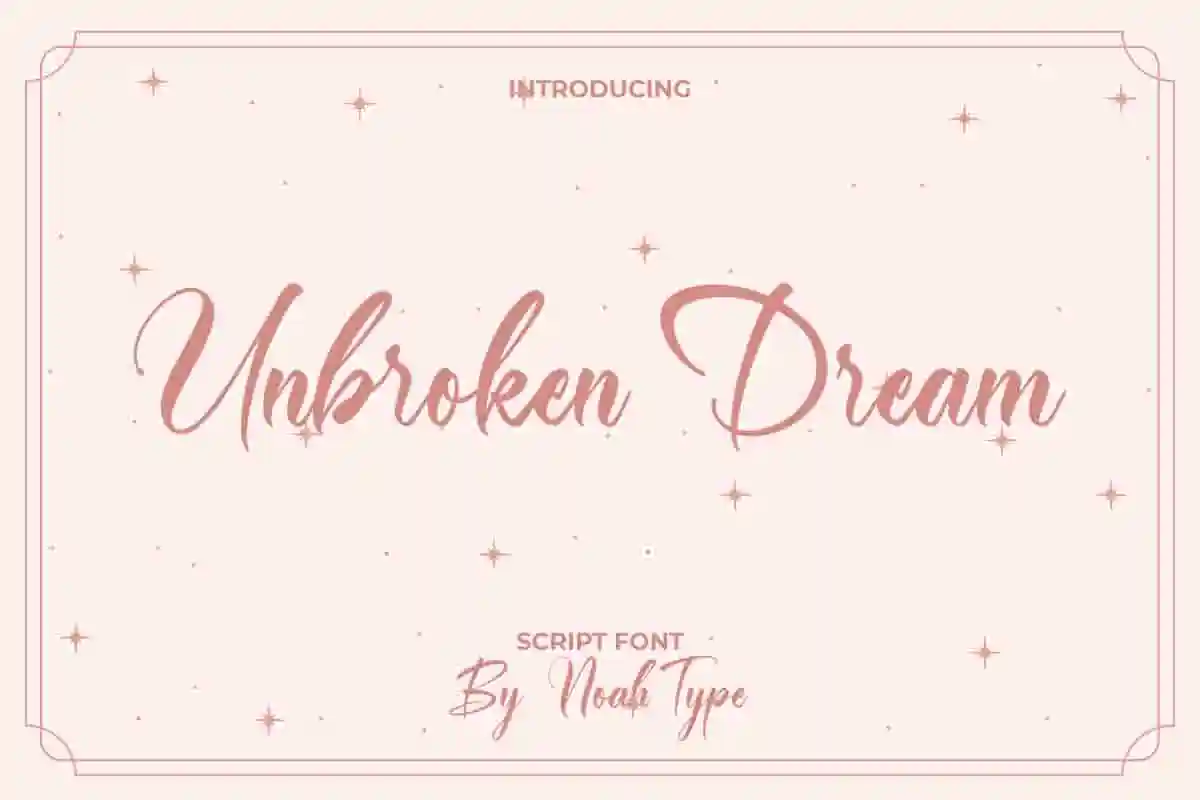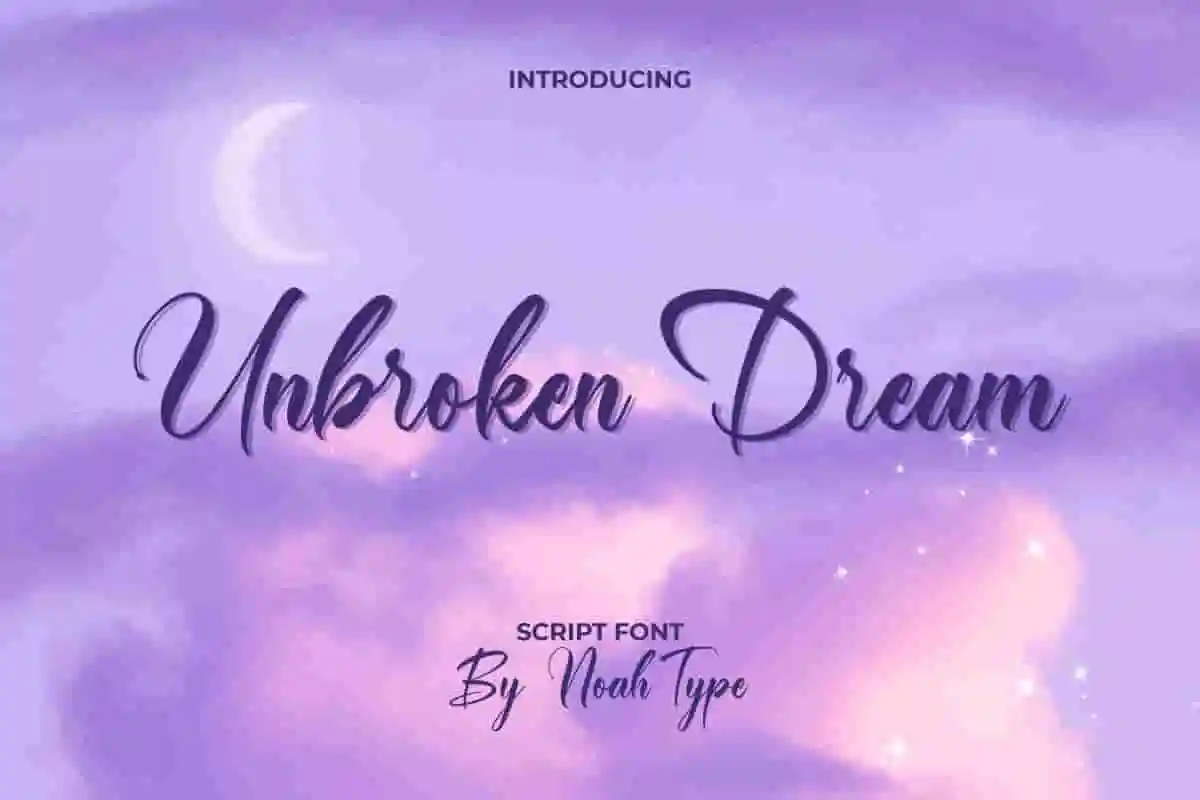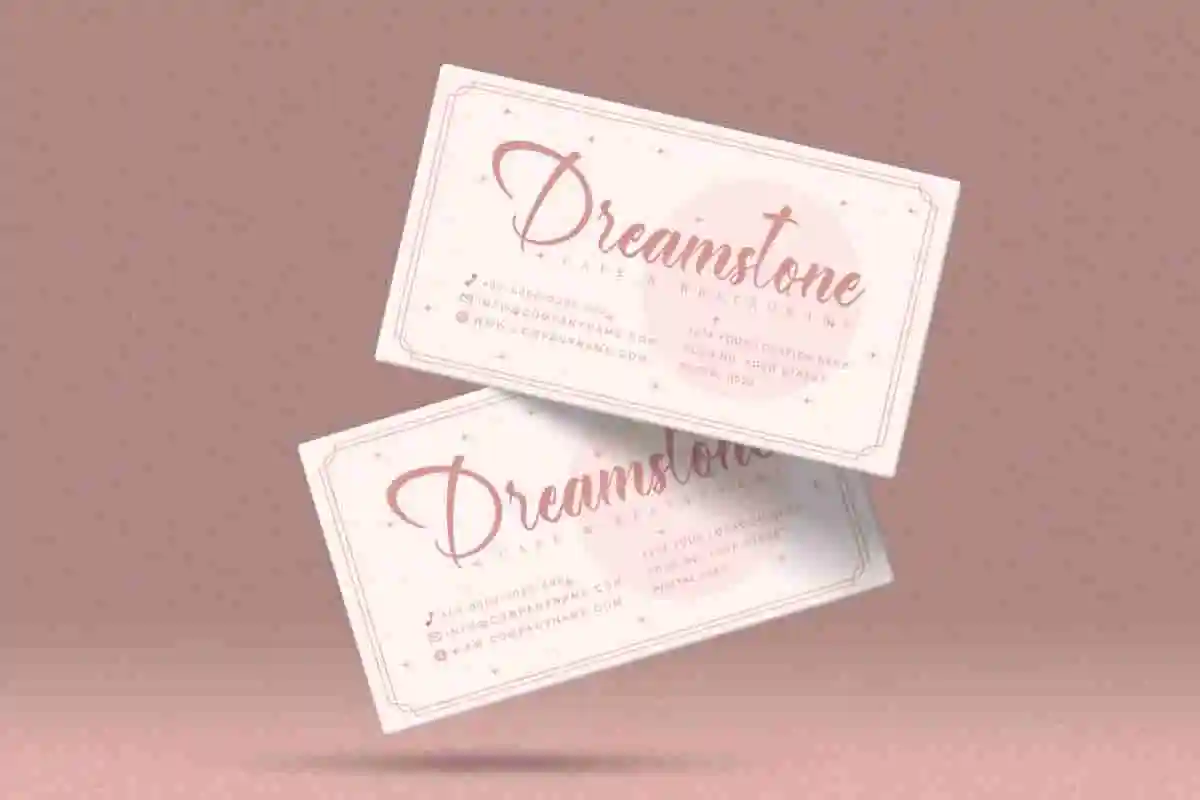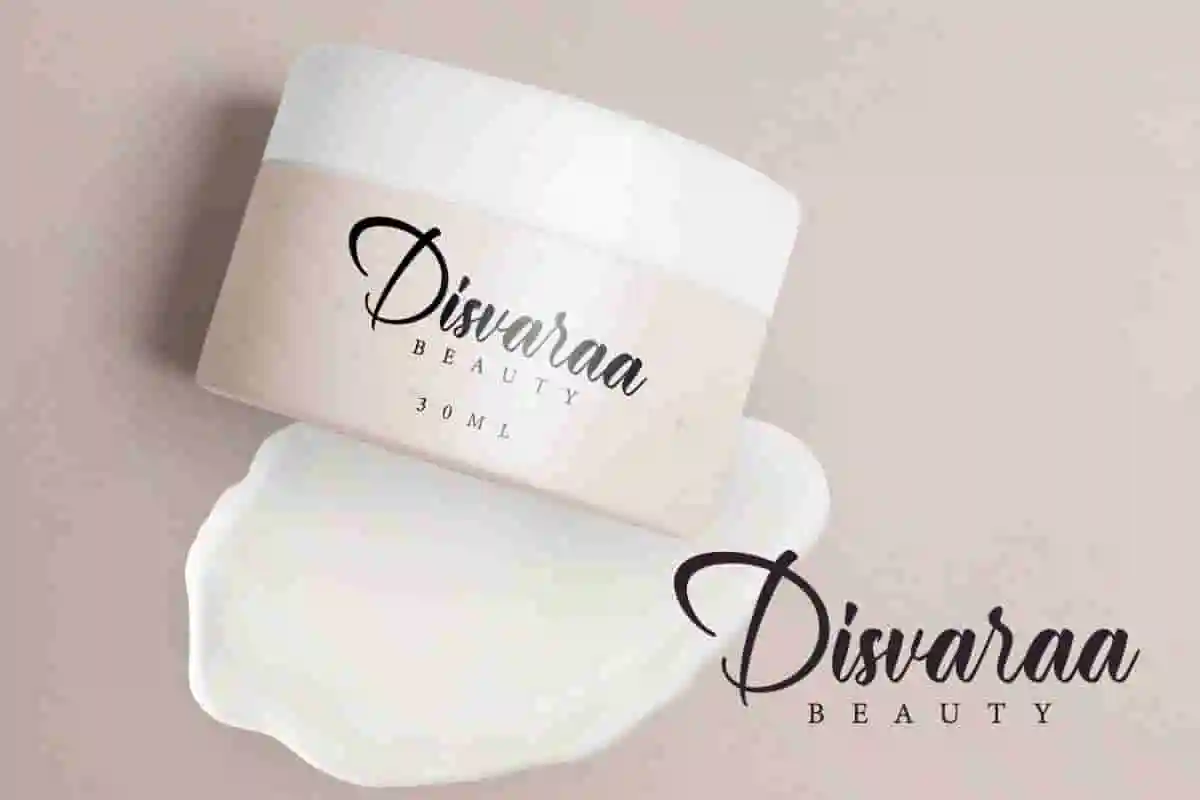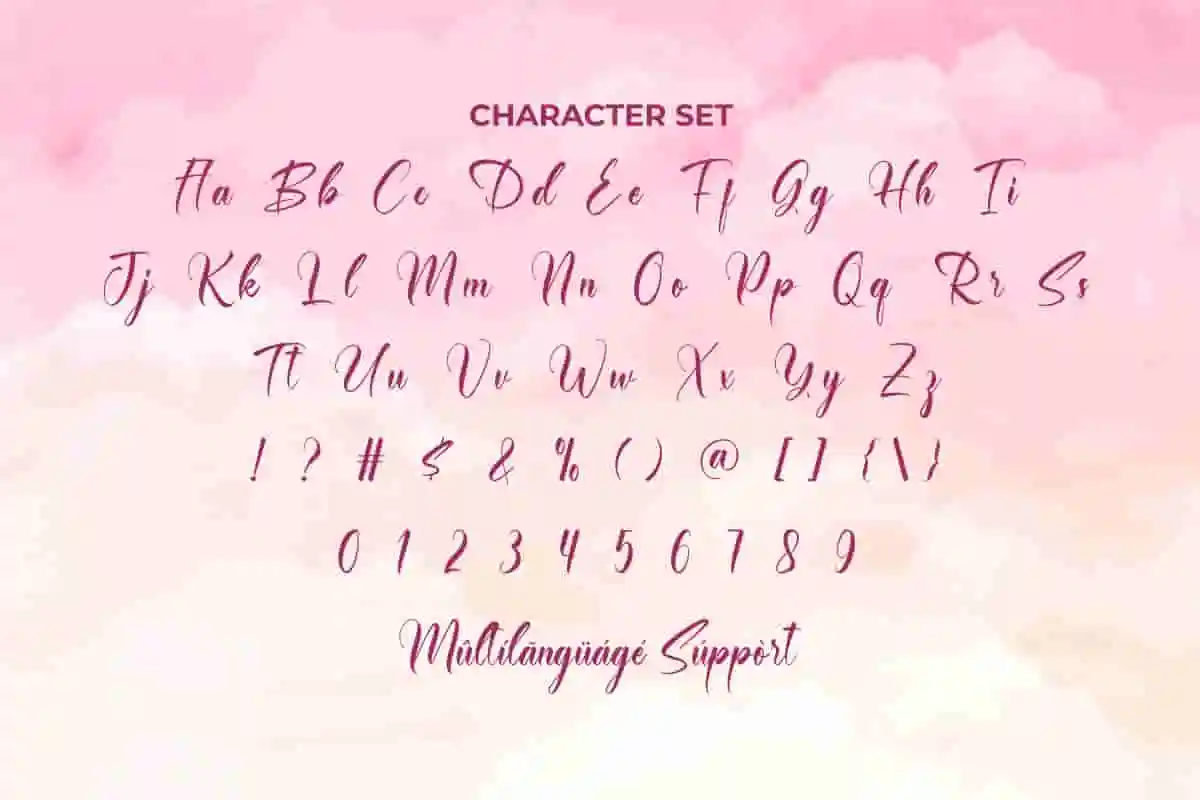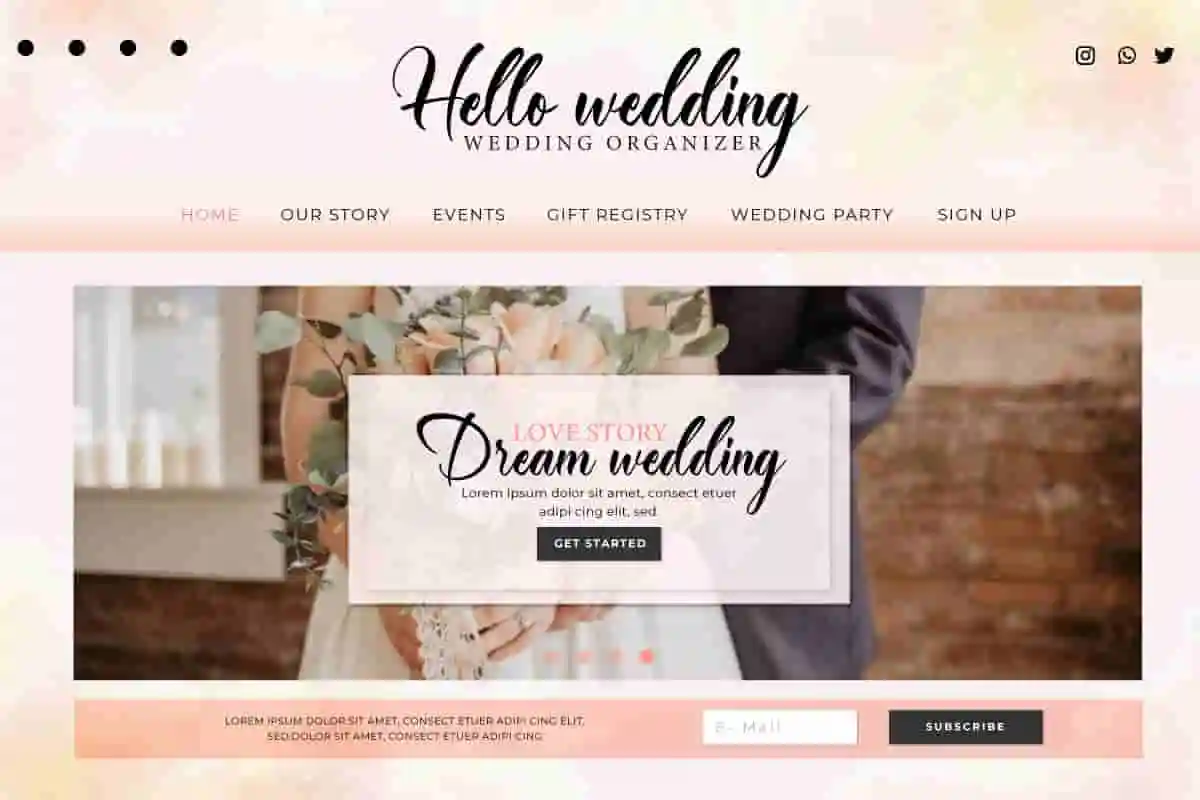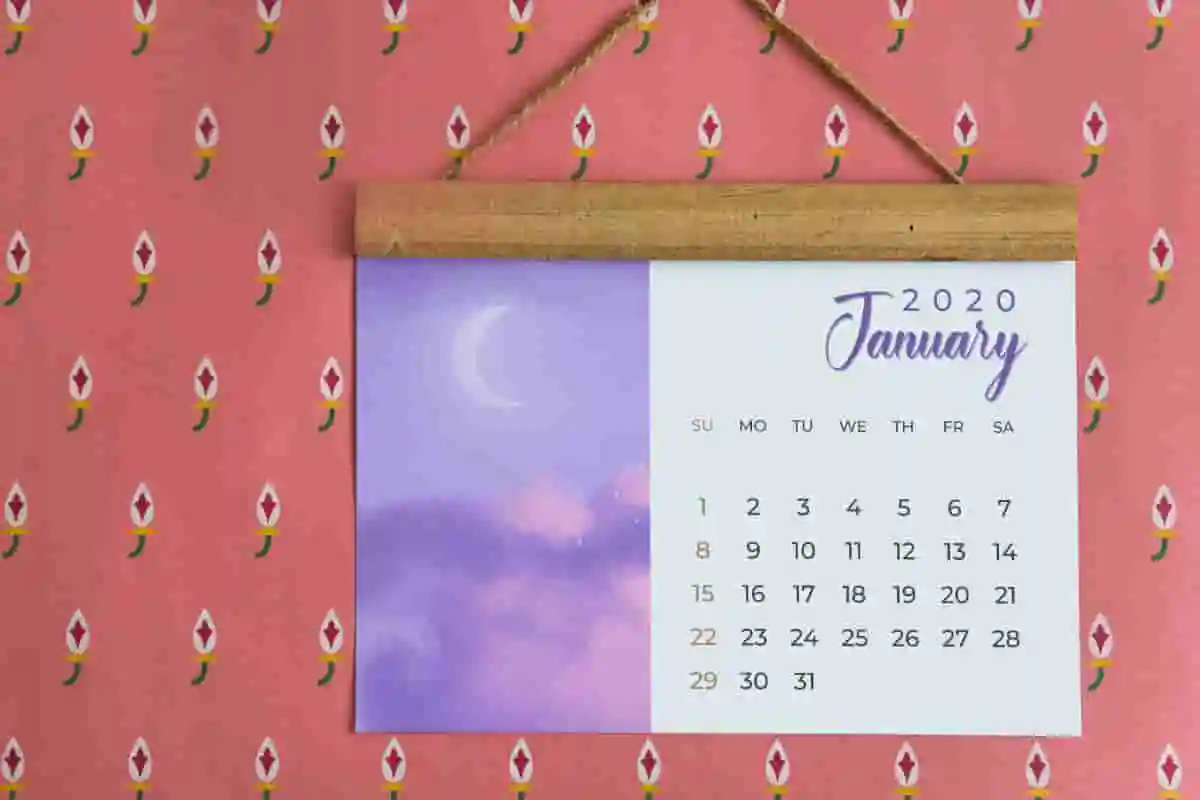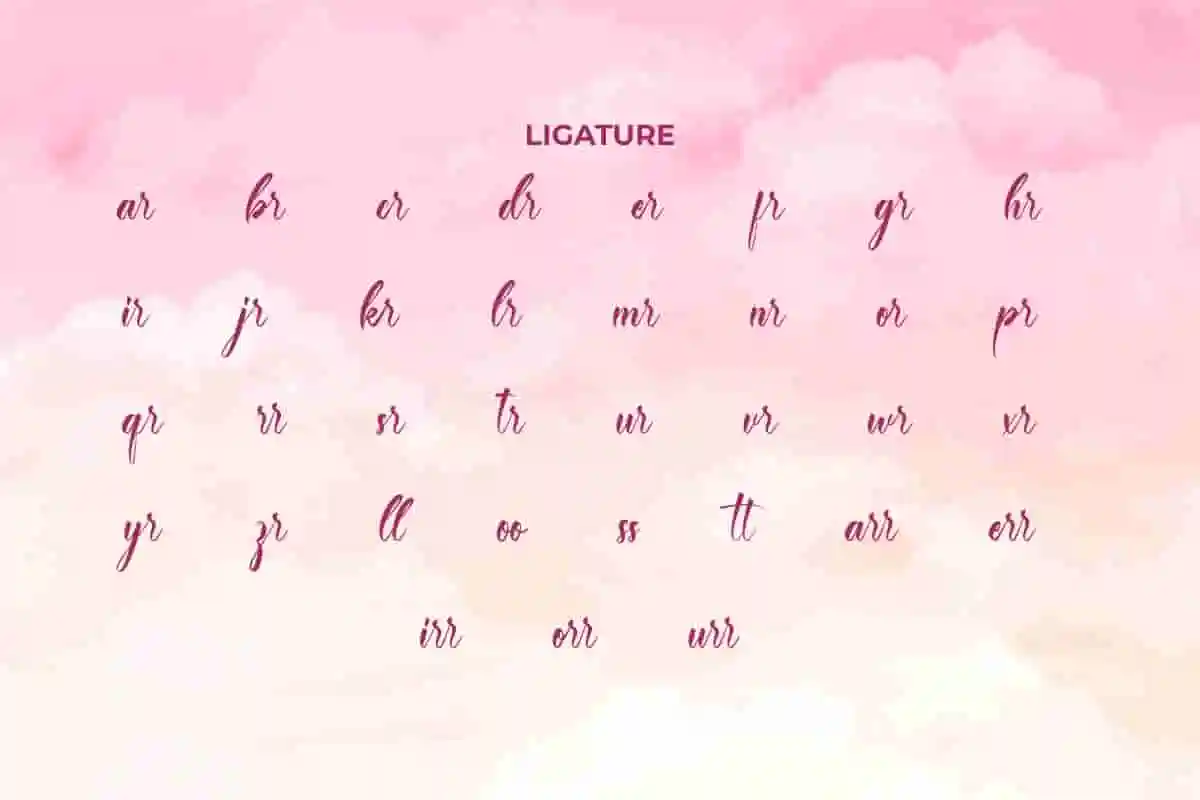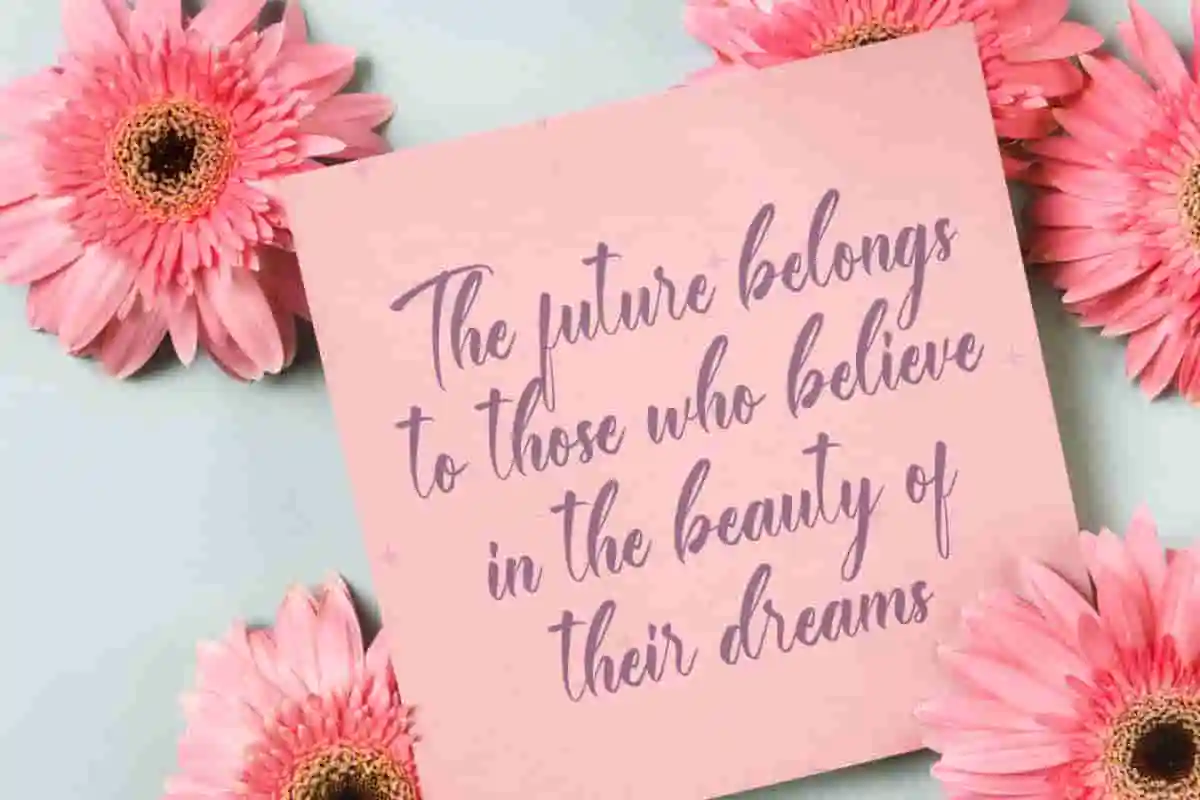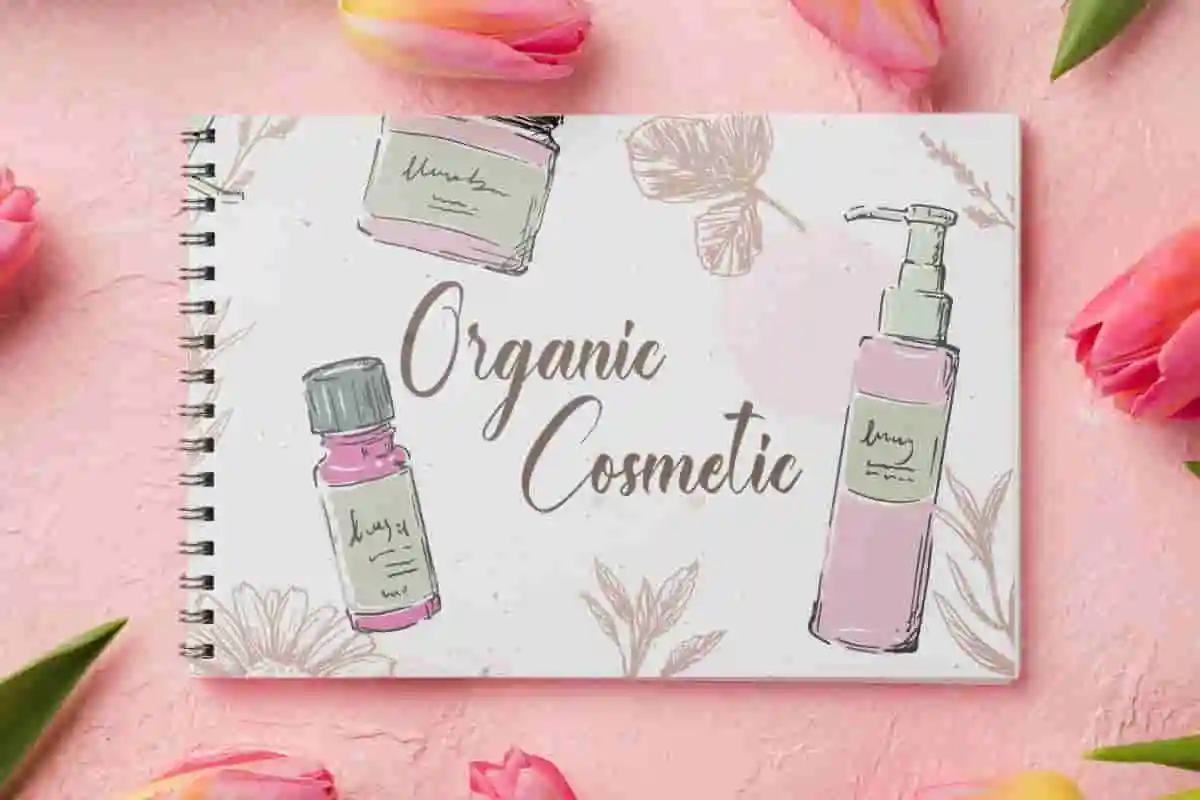
Unbroken Dream Font is a modern stunning brush font with calligraphy style designed and made by NoahType. This font is made of cursive lines which looks good for a stylish design, such as business card, calendar, custom design, invitation, label, magazine catalog, menu, poster, product packaging, quote, title, website, and more!
Unbroken Dream Font includes full set of Uppercase and Lowercase Basic Characters, Numerals, and Punctuation. It also contain Ligature characters that will add perfection and making it suitable for many industries, such as cosmetic, fashion, florist, furniture, interior design, perfume, restaurant, skincare, spa and salon, wedding or event organizer, etc.
Crafted with smooth strokes and natural curves, Unbroken Dream Script Font captures the true essence of handwritten artistry. Its flowing lines and graceful details make it ideal for projects that demand a personal yet professional touch. Whether you’re designing wedding invitations, branding logos, greeting cards, or social media posts, this script font delivers timeless beauty that connects emotionally with your audience.